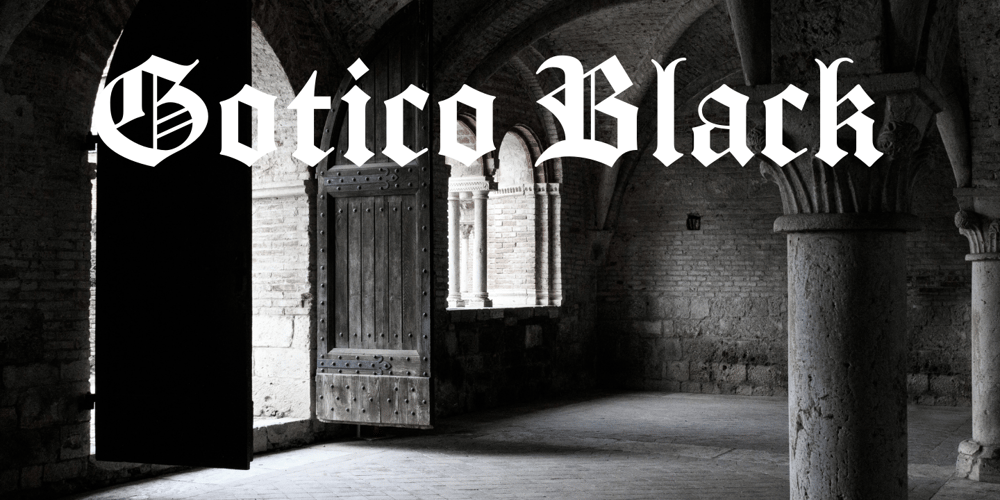
Gotico
Gotico font
Gotico Font Family was designed by Richard Gans and published by GroupType. Gotico contains 1 styles and family package options. Gotico™, meaning Gothic, is a Blackletter script (sometimes referred to as Old English). The original Gotico design was first brought to market by the Fundicion Tipografica Richard Gans type foundry (1888-1975) in Spain. The designer of Gotico is unknown and for many years the font was formerly sold only in Europe.